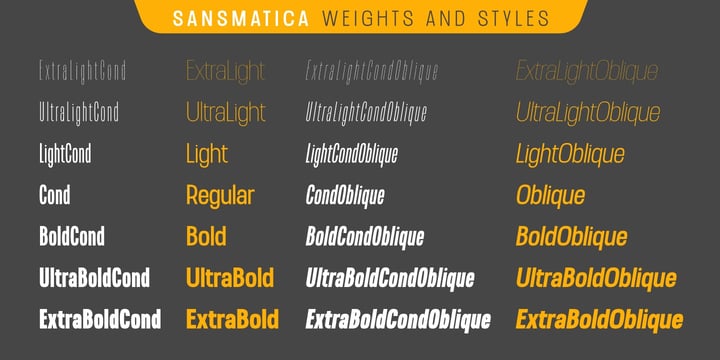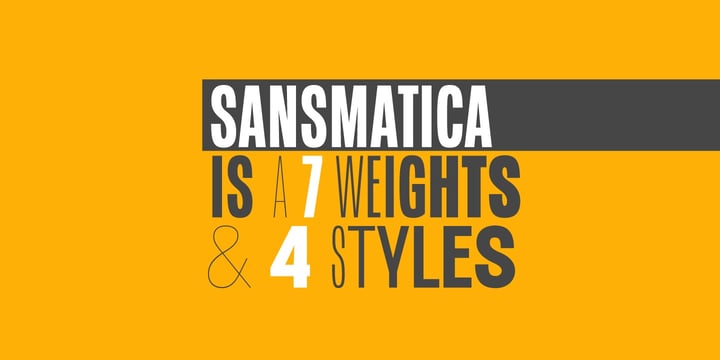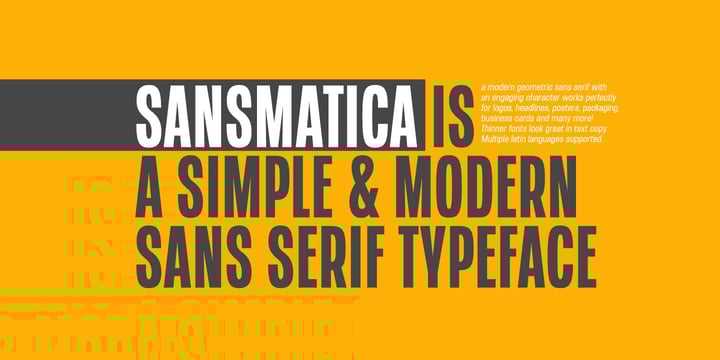
Sansmatica and Phonema font bundle
A versatile sans serif font bundle designed for modern, clean, and professional design work. This bundle includes multiple sans serif families with a strong focus on clarity, balance, and usability across digital and print projects.
Perfect for branding, logos, editorial layouts, websites, UI/UX, social media graphics, packaging, and corporate design, these fonts offer a wide range of styles and weights to adapt to different visual needs. From minimal and elegant to bold and confident, the bundle gives designers reliable tools for contemporary typography.
A versatile sans serif font bundle designed for modern, clean, and professional design work. This bundle includes multiple sans serif families with a strong focus on clarity, balance, and usability across digital and print projects.
Perfect for branding, logos, editorial layouts, websites, UI/UX, social media graphics, packaging, and corporate design, these fonts offer a wide range of styles and weights to adapt to different visual needs. From minimal and elegant to bold and confident, the bundle gives designers reliable tools for contemporary typography.